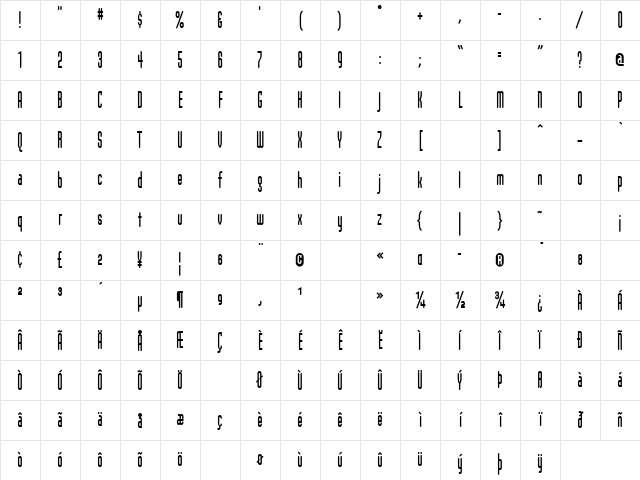
Modula Medium
Copyright: Copyright (C) 1995 Emigre Graphics, Designed by Zuzana Licko
Foundry: C) Emigre Graphics, Designed by Zuzana Licko
Design Context for Modula
Modula is a composed and adaptable typeface that performs quietly and consistently across a wide range of design contexts.
Who designed the Modula Medium font?
This font was published by C) Emigre Graphics, Designed by Zuzana Licko. Check the technical specs section for copyright and designer details.